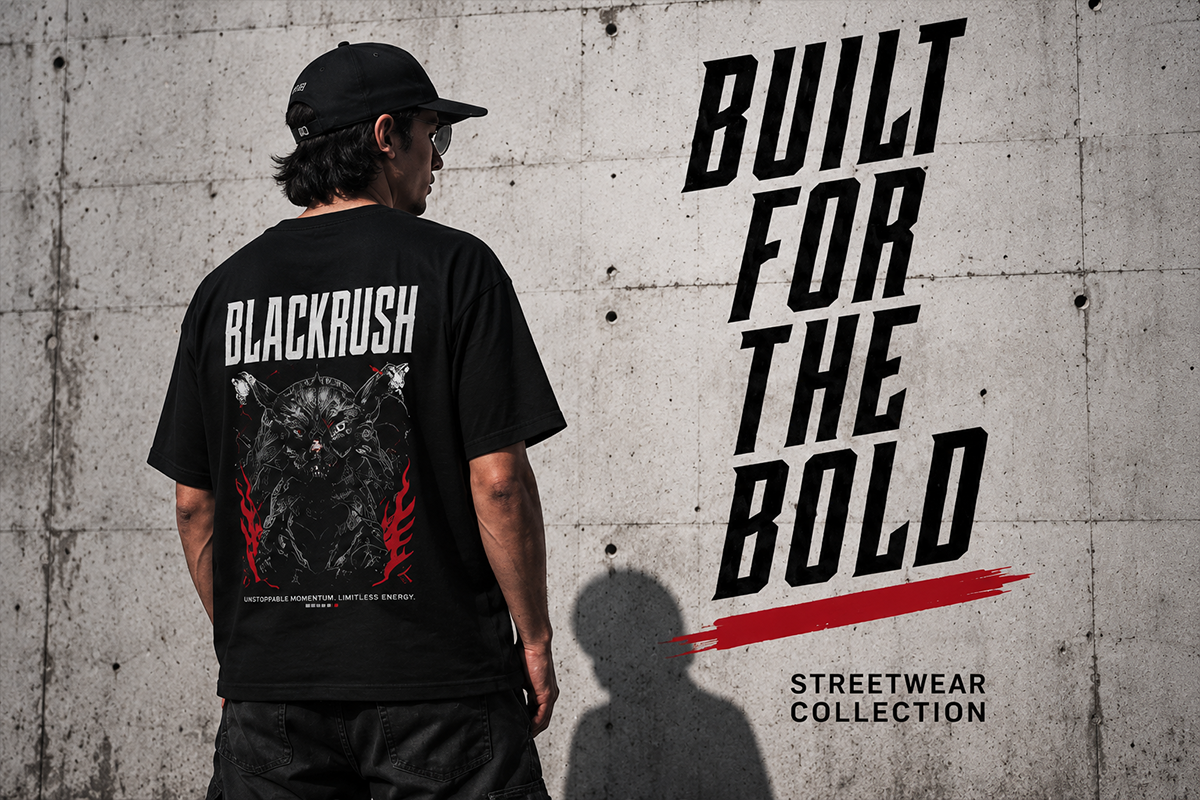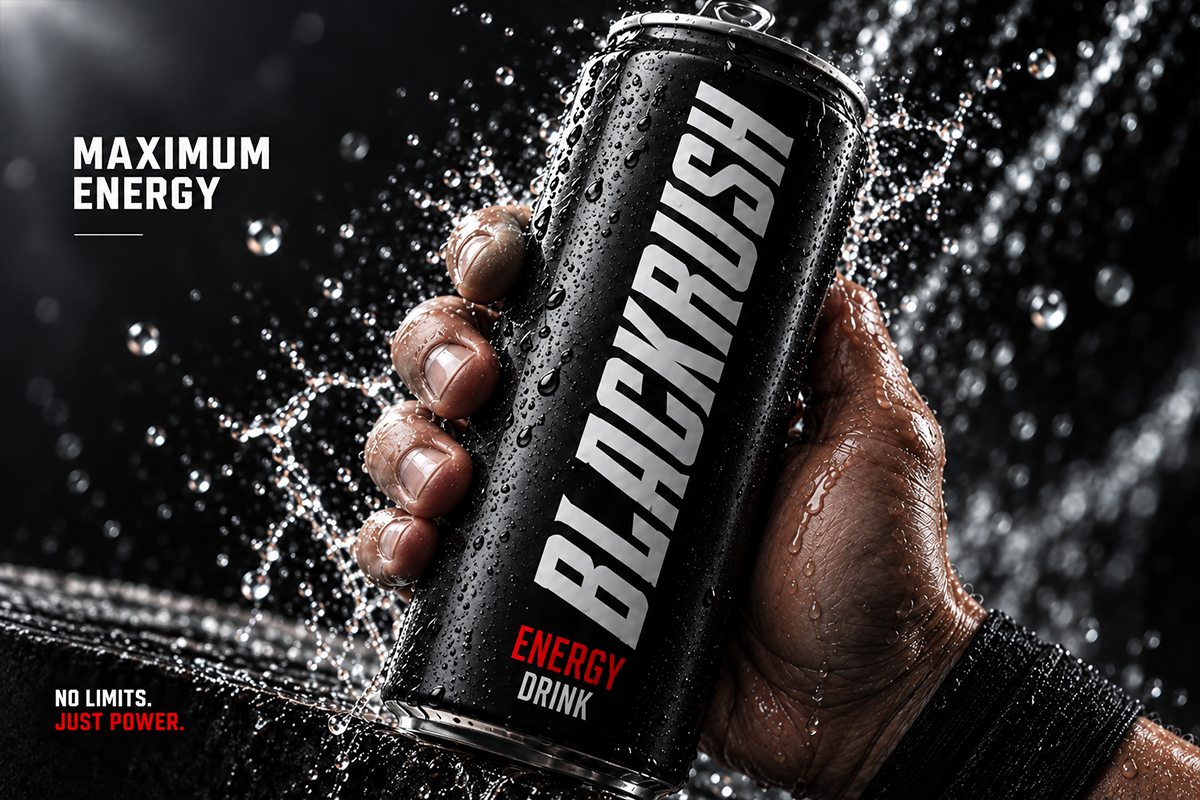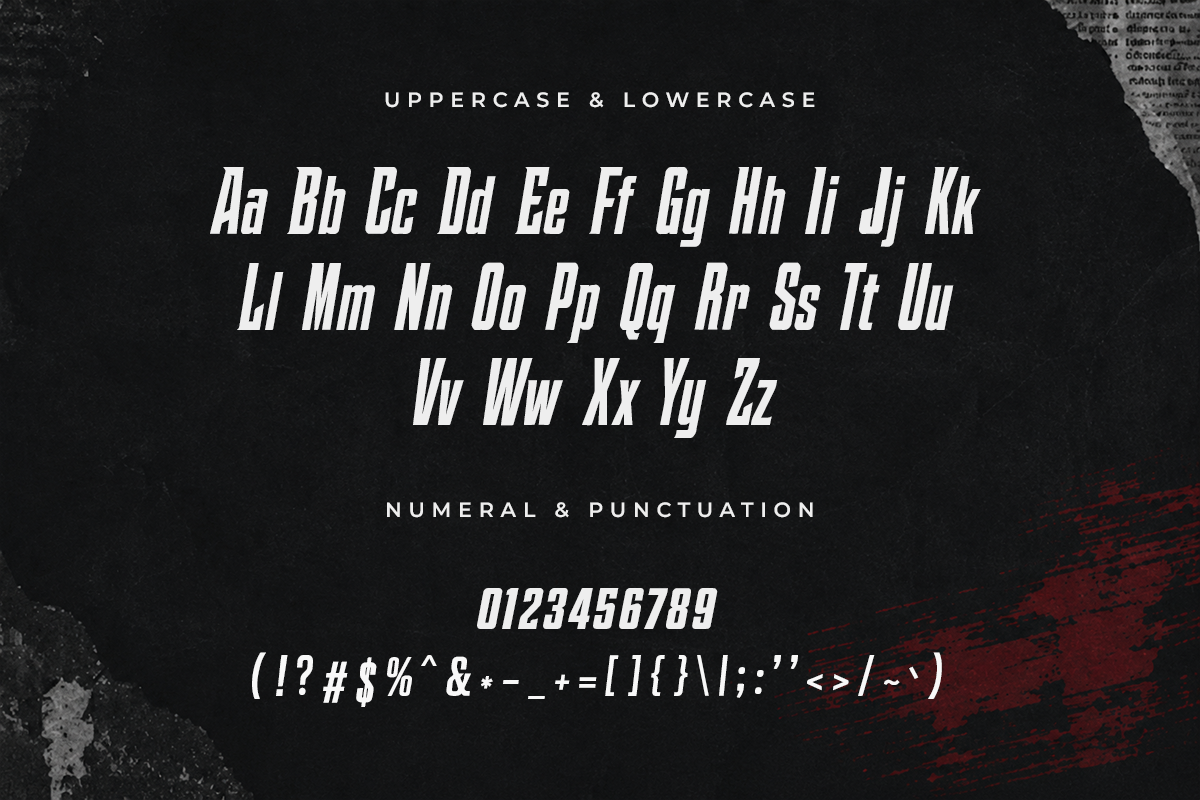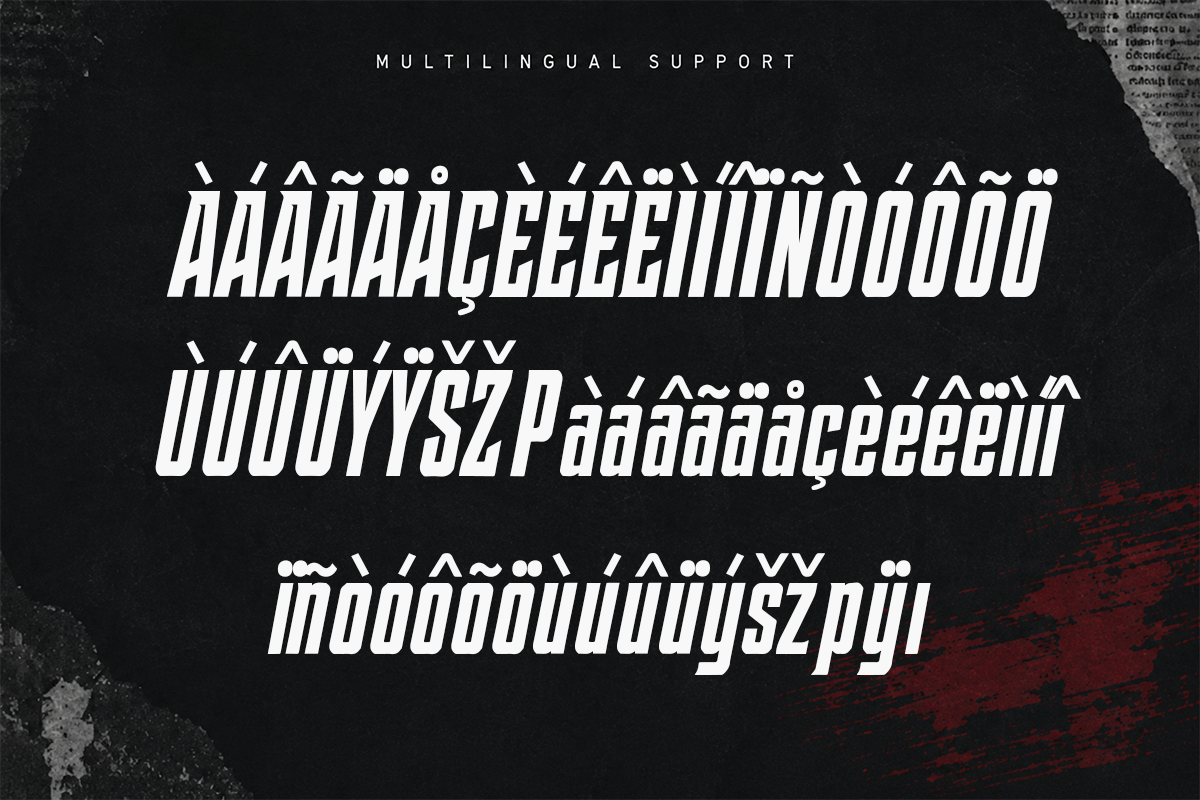
Blackrush A Modern Display Font is a bold modern display font built for designs that demand speed, attitude, and strong visual impact. Featuring tall condensed letterforms, sharp angles, and an aggressive silhouette, this typeface brings an edgy contemporary character to any creative project.
Inspired by street culture, action sports, urban posters, underground music, and modern fashion graphics, Blackrush is perfect for logos, posters, apparel, album covers, branding, event flyers, social media graphics, sports designs, packaging, and merchandise.
Its powerful structure makes Blackrush especially effective for headlines, titles, and statement typography that needs to feel intense, dynamic, and unforgettable.